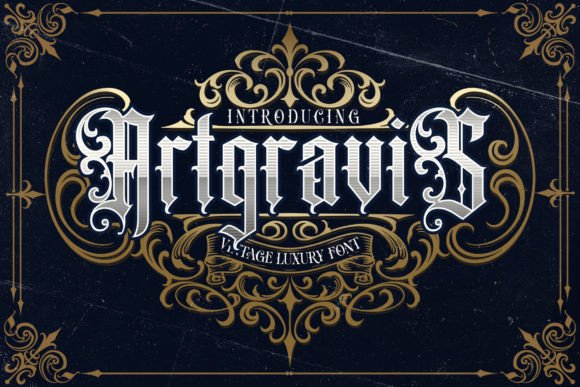
Introducing Artgravis Font: A Distinct and Highly Detailed Blackletter Font
The world of typography is vast and diverse, with numerous fonts available for designers to choose from. However, when it comes to creating exquisite retro-urban designs, tattoo business branding, logos, vintage designs, and more, one font stands out from the rest: Artgravis Modern Blackletter. In this article, we’ll explore the unique features of Artgravis Font and why it’s an excellent choice for designers looking to add a touch of elegance and sophistication to their work.
What is Artgravis Font?
Artgravis Font is a distinct, highly detailed Blackletter Font designed to cater to the needs of designers who want to create stunning retro-urban designs, tattoo business branding, logos, vintage designs, and more. Blackletter fonts are known for their dramatic and ornate style, and Artgravis Modern Blackletter is no exception. Its intricate details and classic design make it an ideal choice for designers who want to add a touch of luxury and sophistication to their work.
Design Uses for Artgravis Font
Artgravis Modern Blackletter is a versatile font that can be used in a variety of design projects. Here are some of the design uses for Artgravis Font:
- Retro-Urban Designs: Artgravis Font is perfect for creating retro-urban designs that require a touch of elegance and sophistication. Its classic design and intricate details make it an excellent choice for designers who want to create stunning posters, flyers, and brochures.
- Tattoo Business Branding: The bold and dramatic style of Artgravis Modern Blackletter makes it an ideal choice for tattoo business branding. Its unique design and intricate details will help tattoo artists and parlors stand out from the competition and create a lasting impression on their clients.
- Logos: Artgravis Font is an excellent choice for creating logos that require a touch of luxury and sophistication. Its classic design and intricate details make it perfect for businesses that want to create a lasting impression on their clients.
- Vintage Designs: Artgravis Modern Blackletter is perfect for creating vintage designs that require a touch of elegance and sophistication. Its classic design and intricate details make it an excellent choice for designers who want to create stunning posters, flyers, and brochures.
Benefits of Using Artgravis Font
There are several benefits to using Artgravis Modern Blackletter in your design projects. Here are some of the advantages of using Artgravis Font:
- Unique Design: Artgravis Font has a unique design that sets it apart from other Blackletter fonts. Its intricate details and classic design make it an excellent choice for designers who want to create stunning designs.
- Highly Detailed: Artgravis Modern Blackletter is a highly detailed font that is perfect for designers who want to create intricate designs. Its detailed design makes it an excellent choice for creating stunning posters, flyers, and brochures.
- Versatile: Artgravis Font is a versatile font that can be used in a variety of design projects. Its classic design and intricate details make it perfect for retro-urban designs, tattoo business branding, logos, vintage designs, and more.
- Elegant and Sophisticated: Artgravis Modern Blackletter is an elegant and sophisticated font that adds a touch of luxury to any design project. Its classic design and intricate details make it perfect for designers who want to create stunning designs.
Tips for Using Artgravis Font
Here are some tips for using Artgravis Modern Blackletter in your design projects:
- Use it Sparingly: Artgravis Font is a bold and dramatic font that should be used sparingly. Use it for headings and titles to create a lasting impression on your clients.
- Pair it with Other Fonts: Artgravis Modern Blackletter can be paired with other fonts to create a stunning design. Pair it with a sans-serif font to create a beautiful contrast.
- Experiment with Colors: Artgravis Font looks great in a variety of colors. Experiment with different colors to find the one that works best for your design project.
- Pay Attention to Kerning: Pay attention to kerning when using Artgravis Modern Blackletter. Make sure the letters are evenly spaced to create a beautiful design.
In conclusion, Artgravis Modern Blackletter is a distinct and highly detailed Blackletter Font that is perfect for designers who want to create exquisite retro-urban designs, tattoo business branding, logos, vintage designs, and more. Its unique design, intricate details, and classic style make it an excellent choice for designers who want to add a touch of elegance and sophistication to their work. With its versatility, elegant design, and highly detailed style, Artgravis Font is a must-have for any designer looking to create stunning designs.